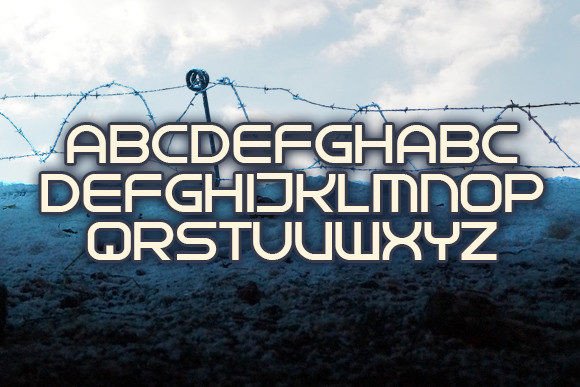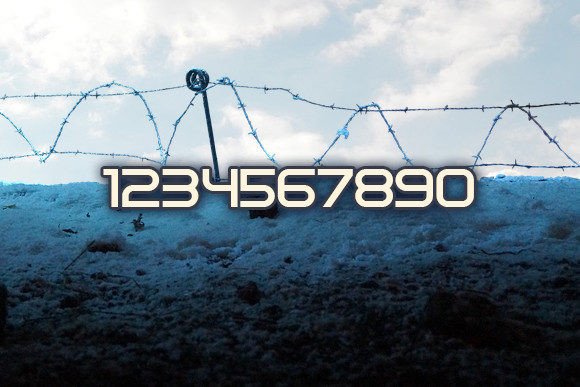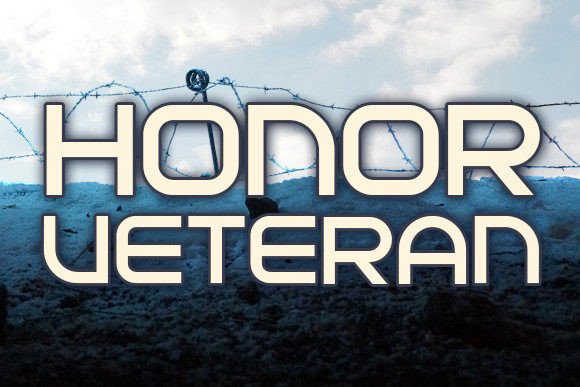
Unleash Your Creativity with Central Powers Font
Have you ever found yourself stuck in a design rut, scrolling through font options, searching for that one perfect element to elevate your project? It’s a familiar feeling for many creatives. But what if I told you there’s a font that can transport you to a world of futuristic possibilities?
Introducing Central Powers Font, a cutting-edge display font designed to take your designs to the next level. With its sleek, modern aesthetic, this font is perfect for designers looking to add a sci-fi touch to their work. Whether you’re creating posters, quotes, or eye-catching social media posts, Central Powers Font is the perfect companion for your creative journey. Its versatility and bold design make it a valuable asset for designers seeking to push the boundaries of their art.
Central Powers Font Key Features
- Font Family: Central Powers Font is a custom-designed font family.
- Unique Characteristics: Features a distinctive, elegant design with a mix of modern and vintage elements, making it ideal for historical, cultural, or luxury branding.
- Character Set: Includes a comprehensive set of characters, including Latin, Cyrillic, and Greek alphabets, as well as punctuation and symbols.
Central Powers Font Review
As a designer, I was excited to dive into the Central Powers Font and see what it had to offer. Here’s my honest review:
- Unique historical theme: The Central Powers Font is a great way to pay homage to a lesser-known era in history, making it perfect for projects that require a touch of nostalgia.
- Customizable: The font comes with a range of customization options, allowing you to tweak the look and feel to suit your design needs.
- Good legibility: Despite its vintage aesthetic, the font is surprisingly easy to read, making it a great choice for body text or headlines.
- Limited character set: The font’s character set is somewhat limited, which may not be ideal for projects that require a wide range of characters or special symbols.
- Lack of bold weight: The font could benefit from a bold weight option to add more visual interest and contrast to designs.
Overall, I think the Central Powers Font is a solid choice for designers looking for a unique and customizable font. While it has some limitations, its historical theme and good legibility make it a great option for projects that require a touch of nostalgia and sophistication.
For optimal results, use the Central Powers Font in combination with a bold or italic font to create a striking contrast. You can also use the font in combination with a background image or color to create a visually appealing design.
The Central Powers Font is commonly used for historical or military-themed designs, such as World War I or II posters, military certificates, or historical documents. It can also be used for decorative or artistic purposes, such as typography-based art or design projects.